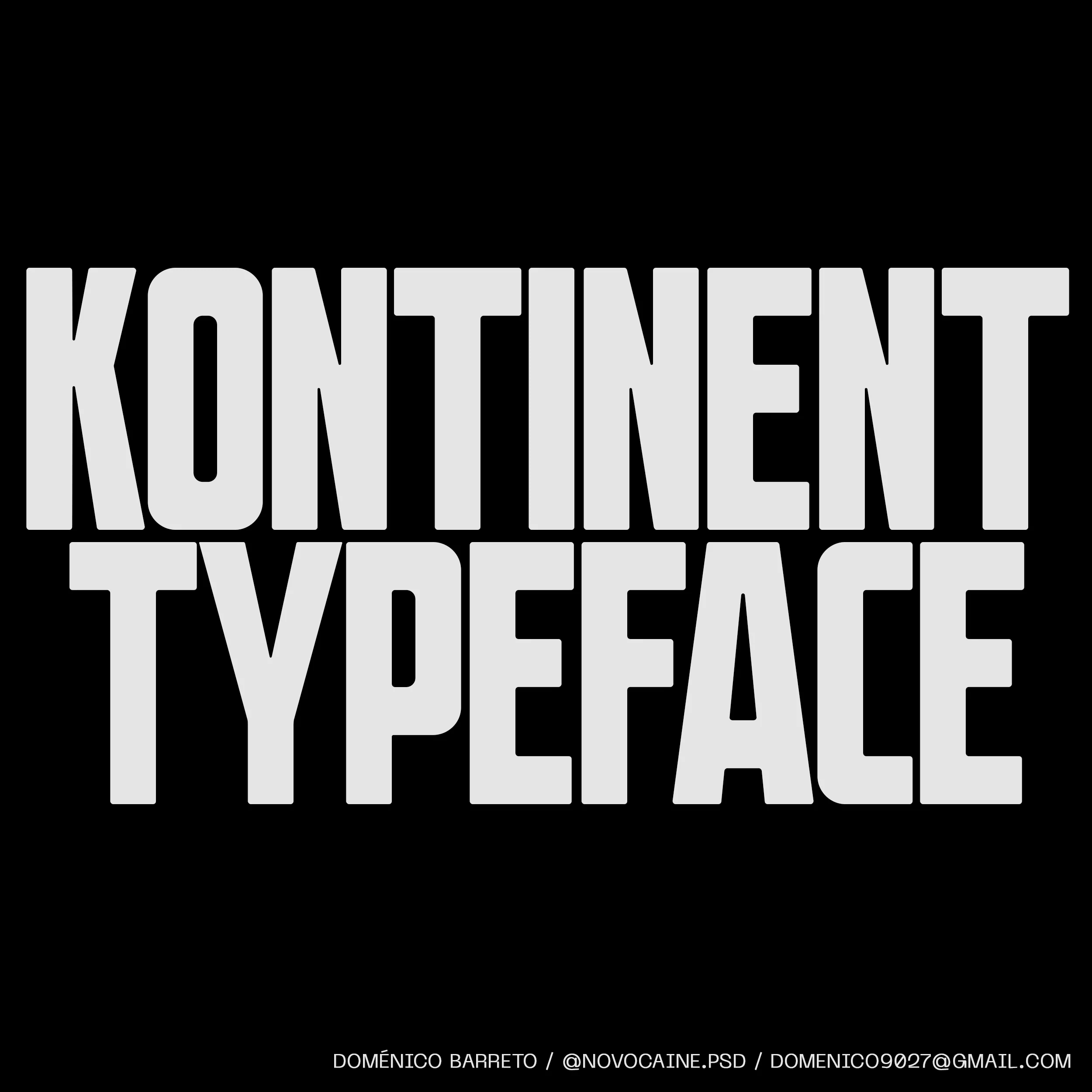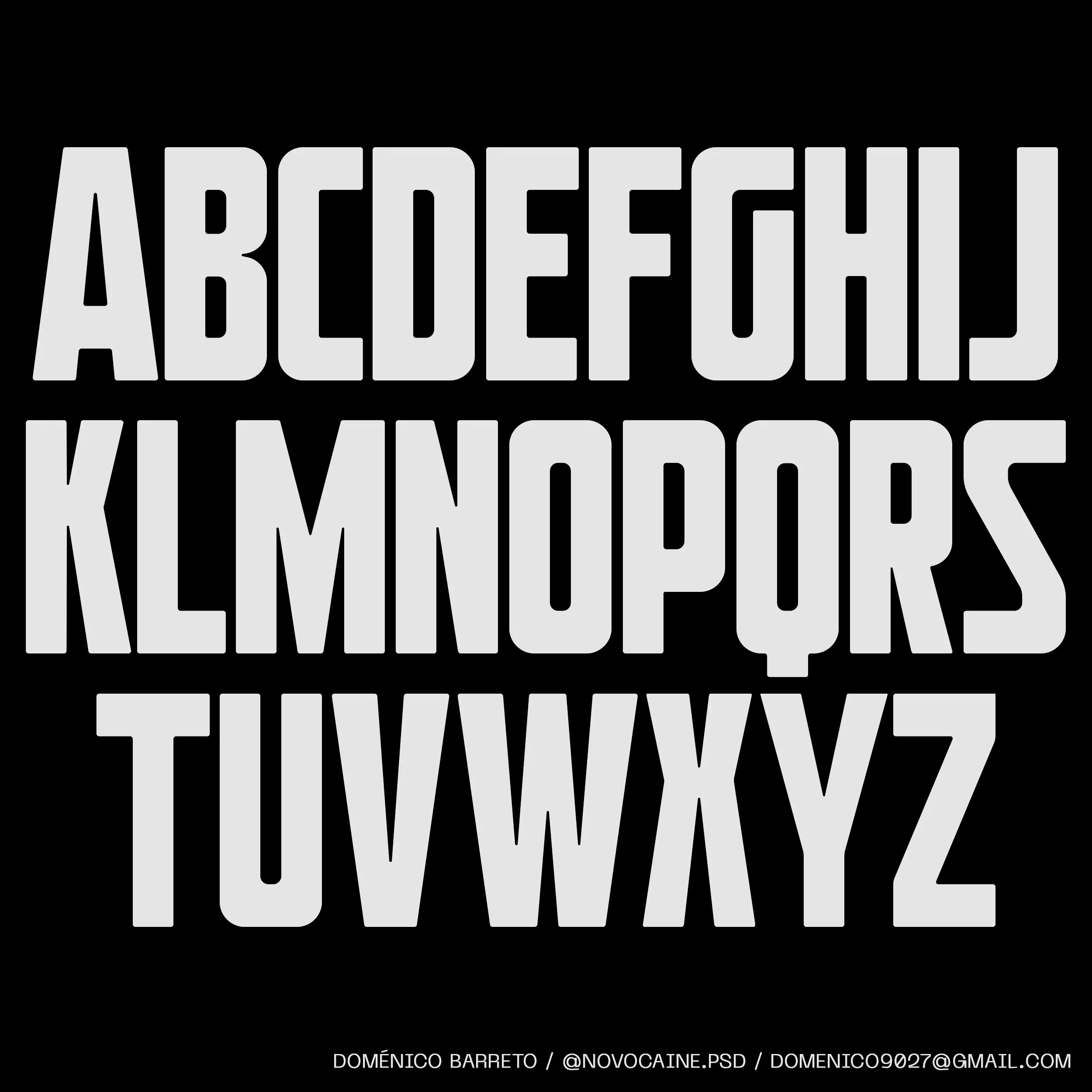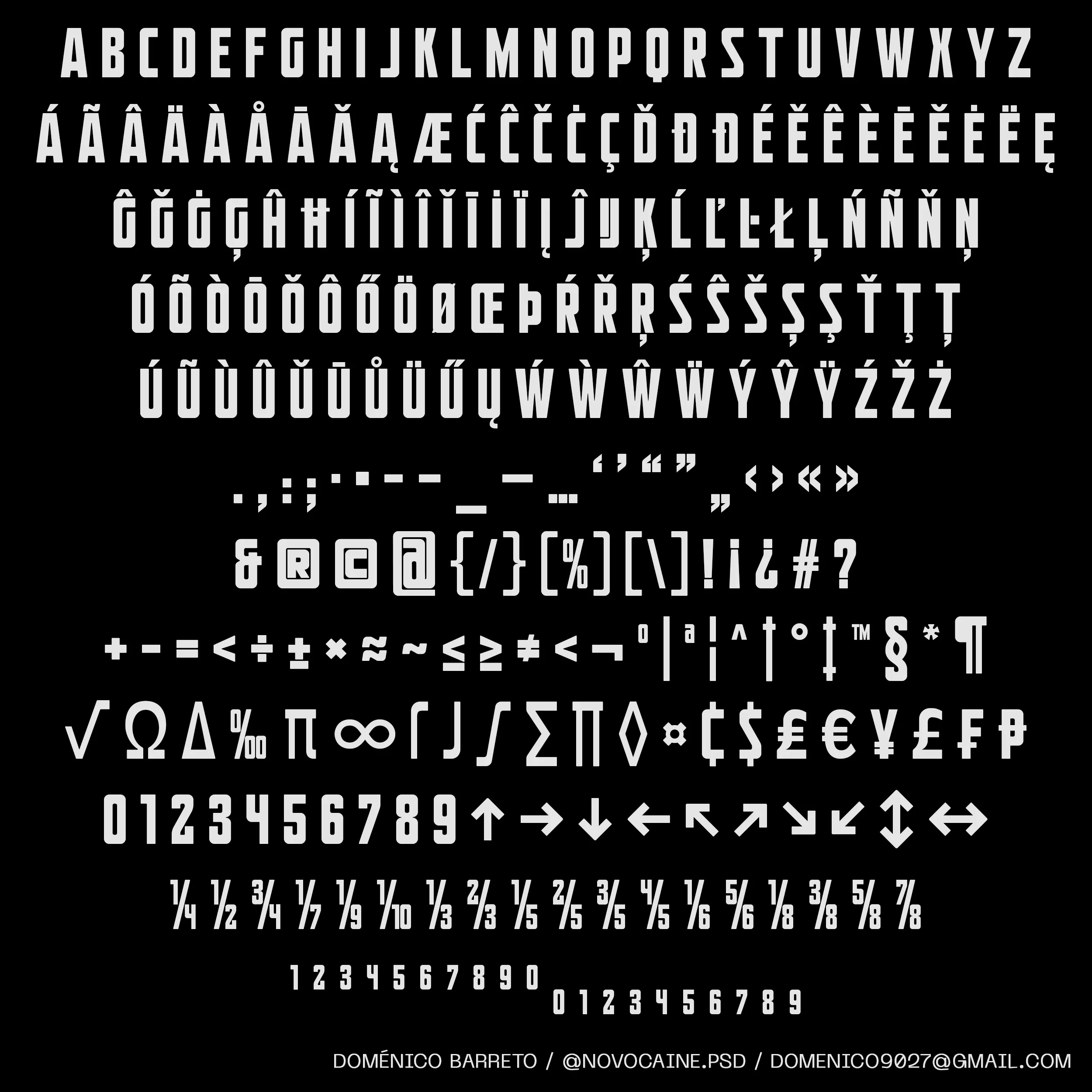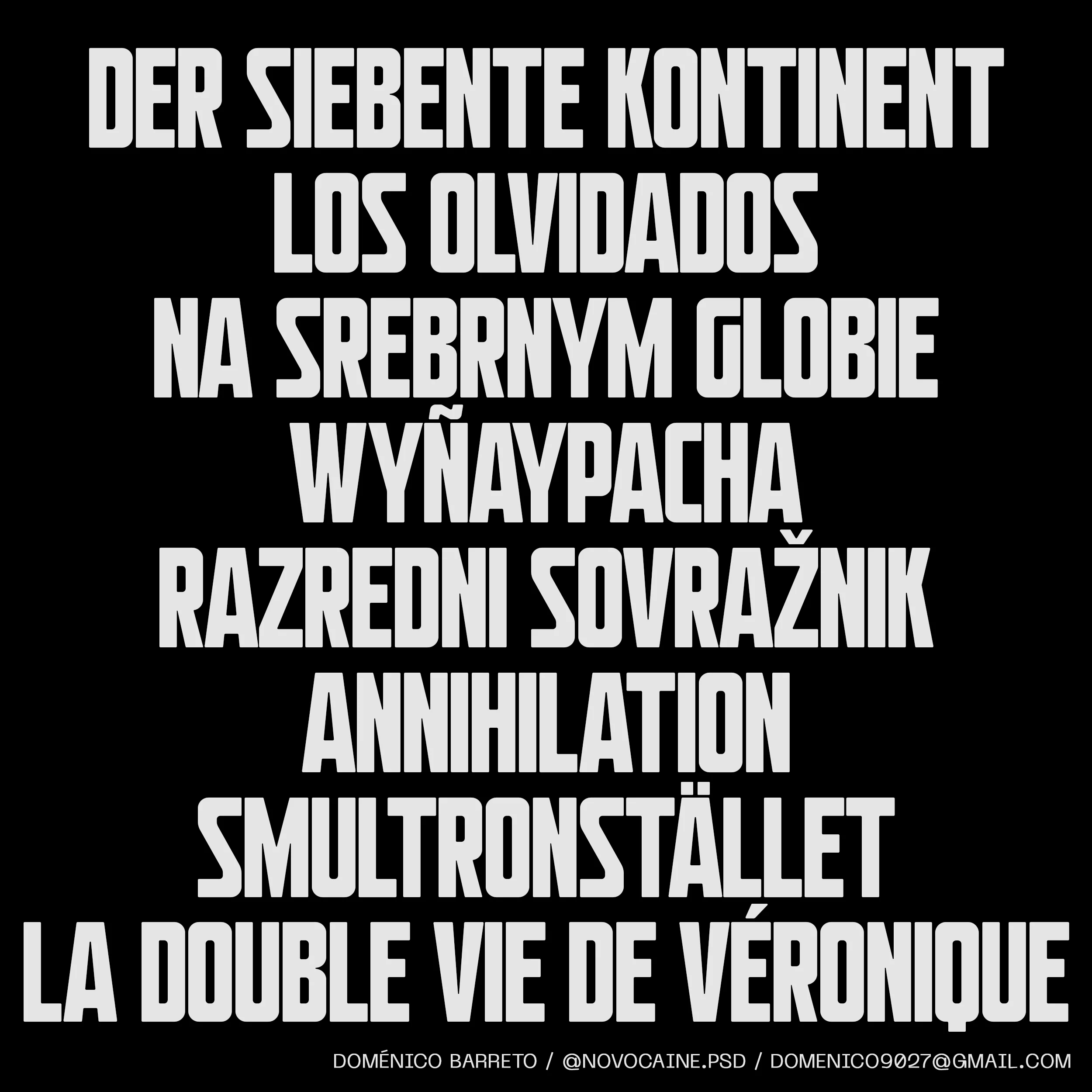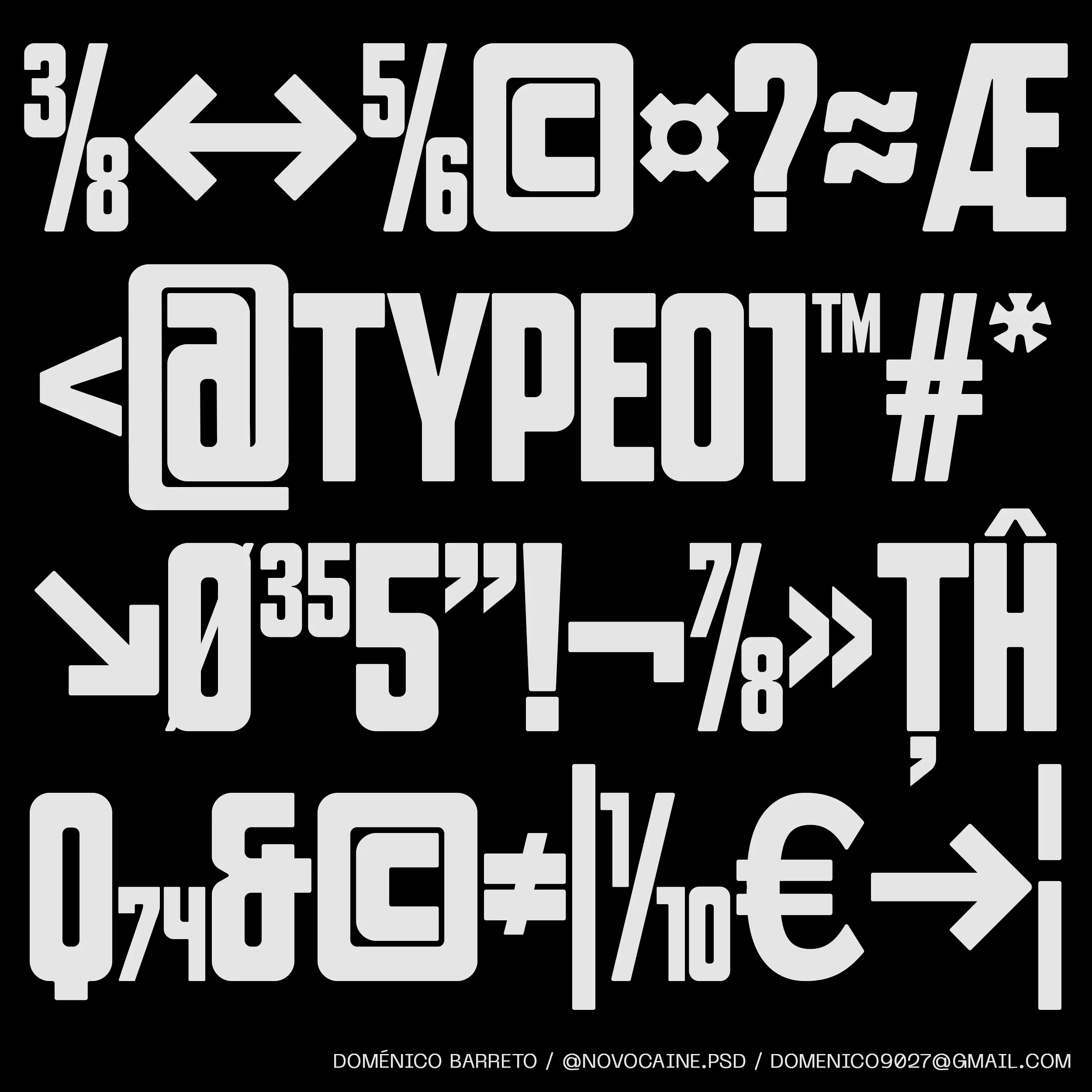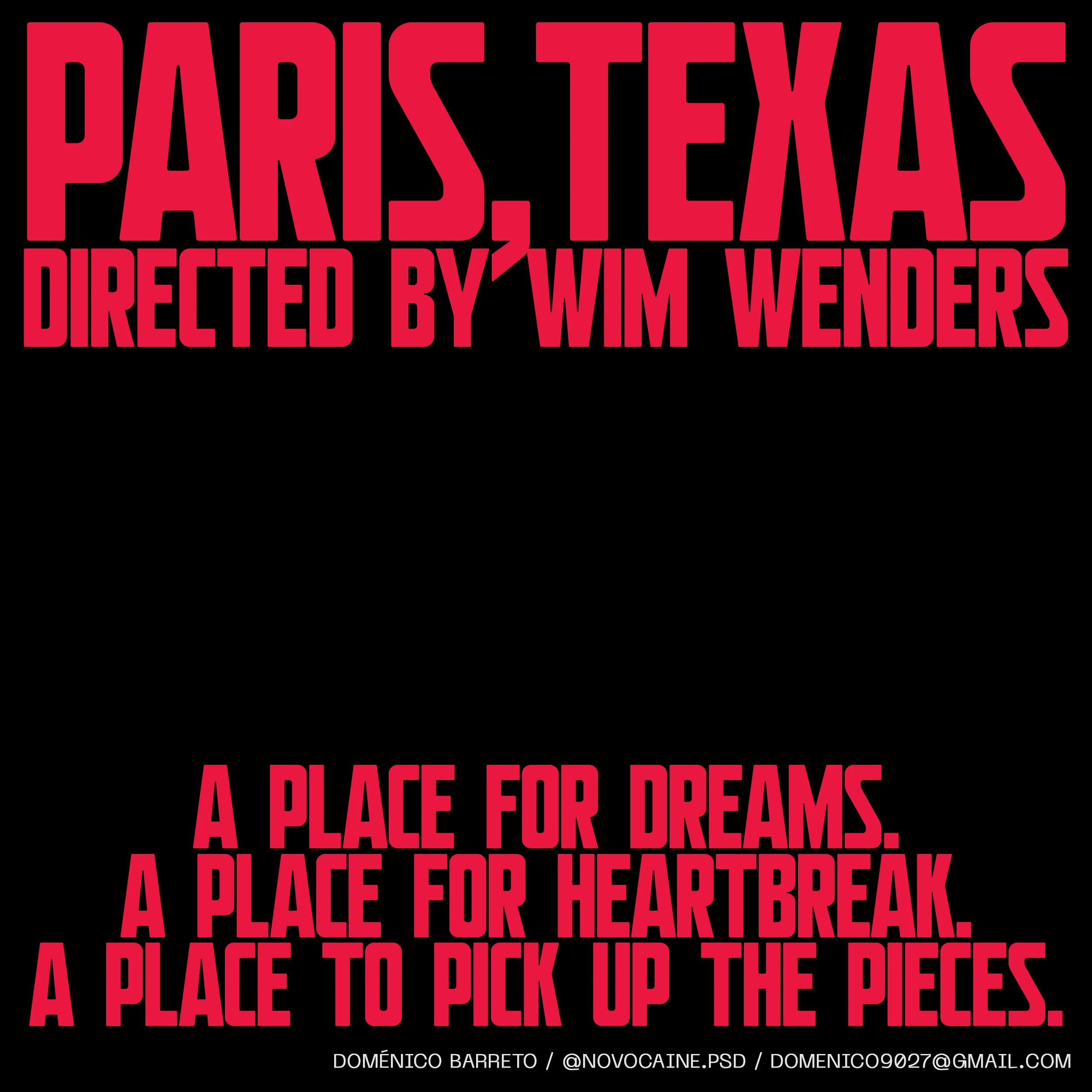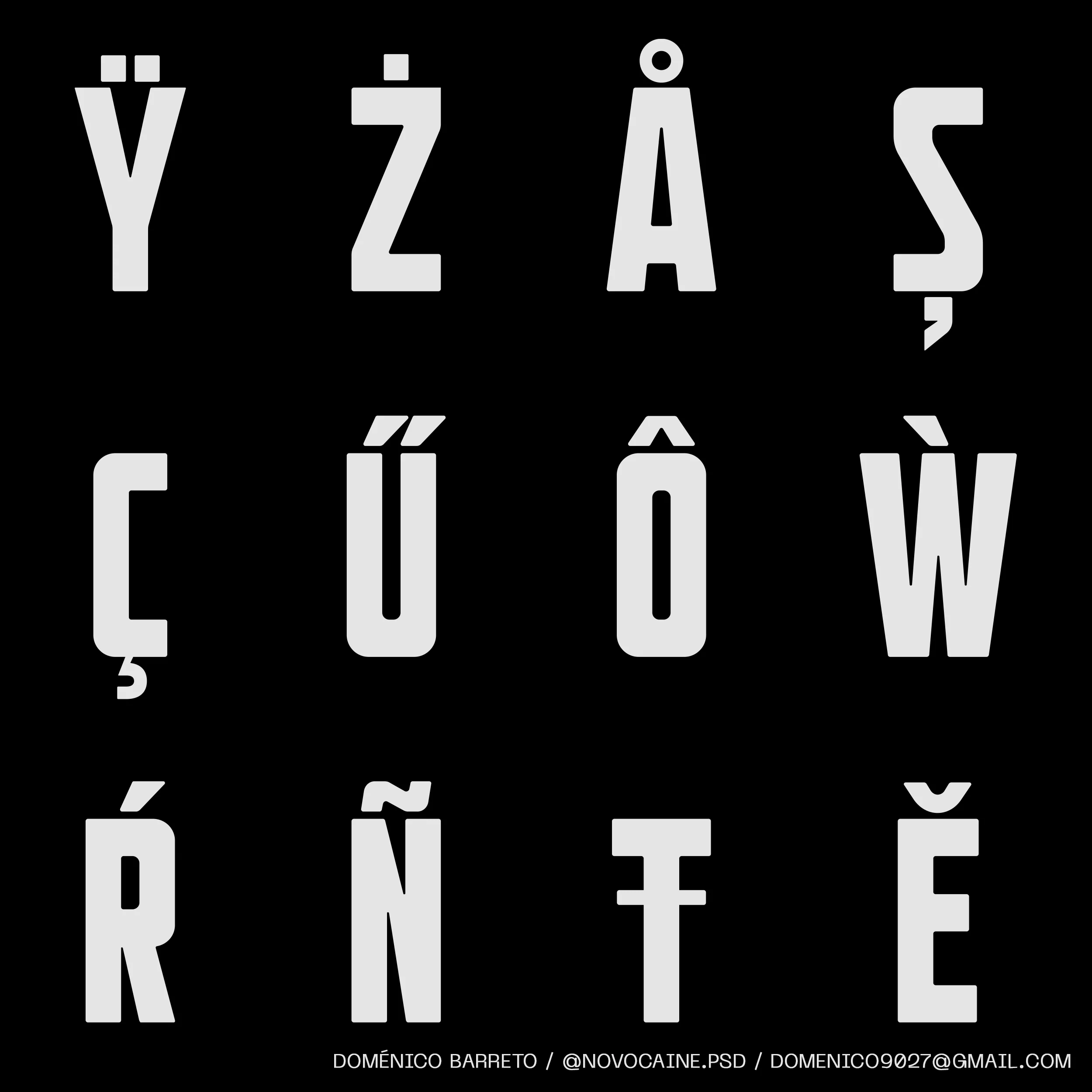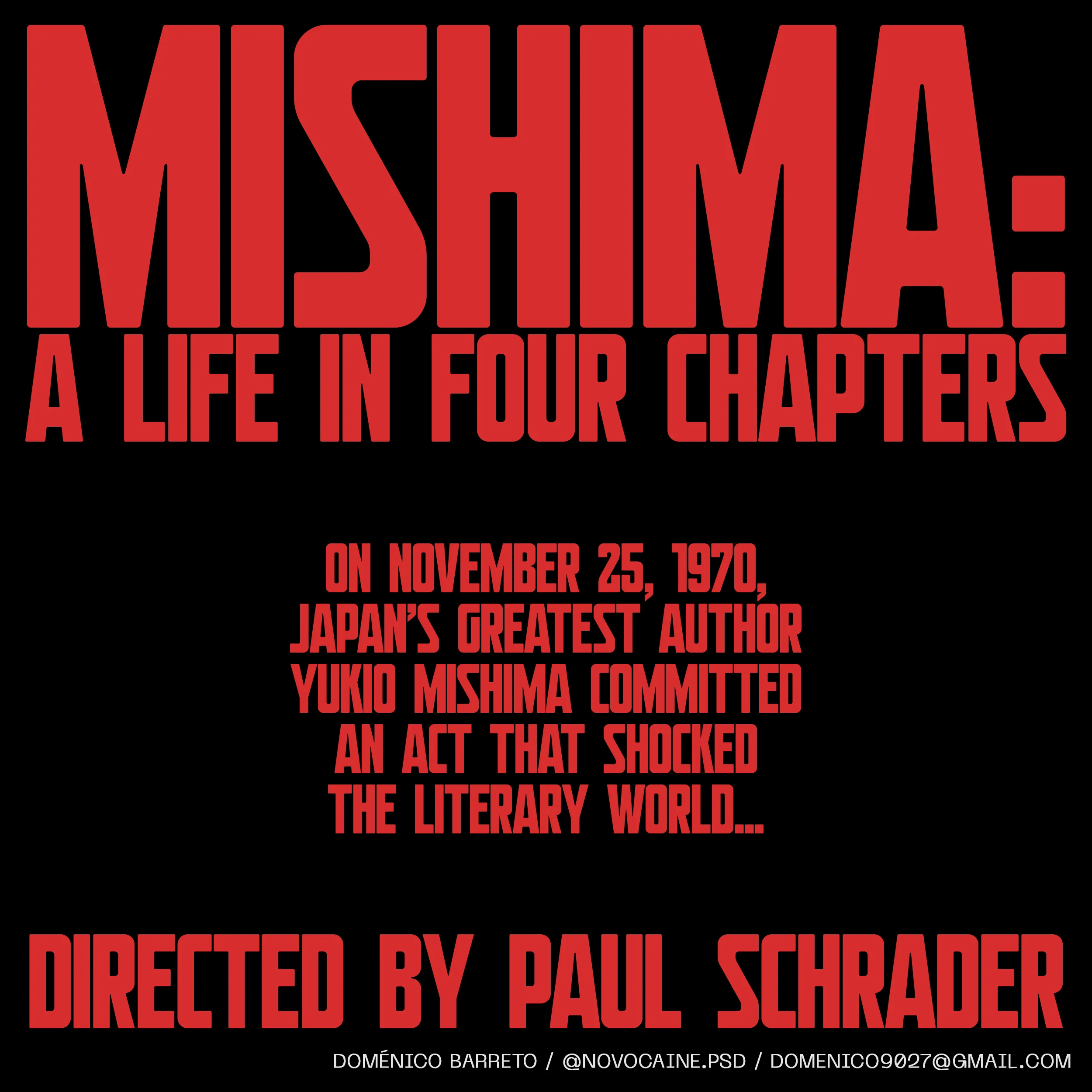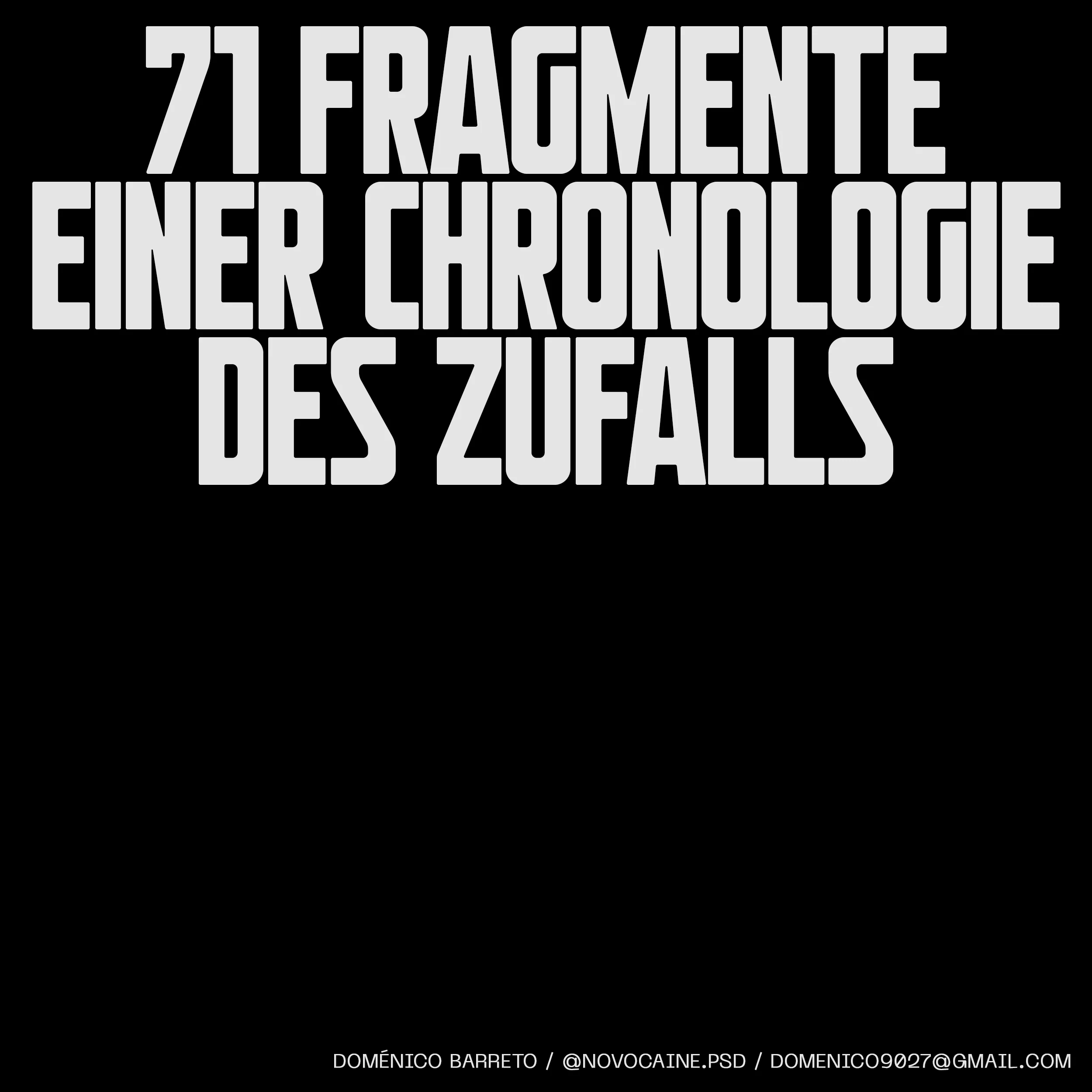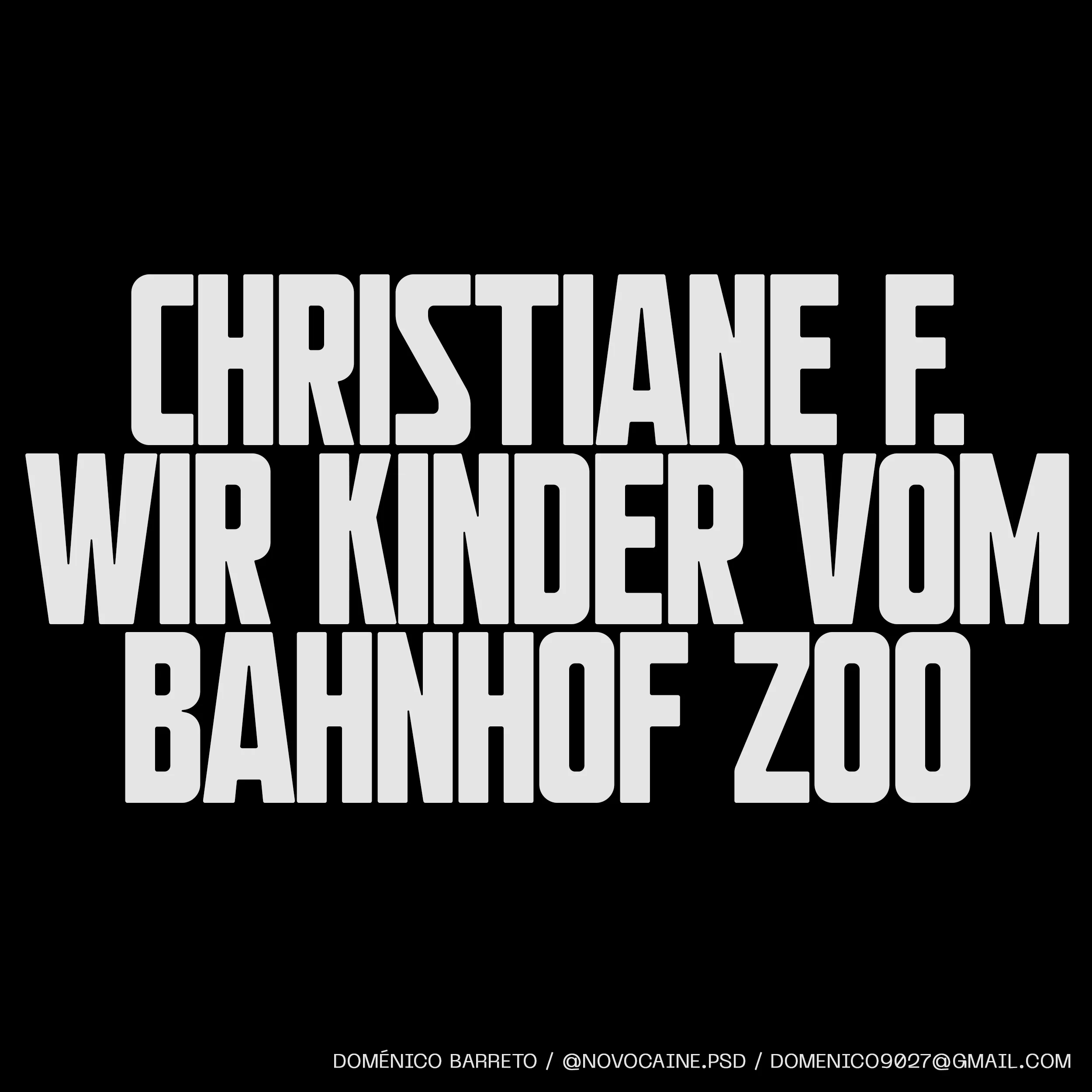
Kontinent
Kontinent is a striking uppercase sans serif display typeface crafted with slightly heavier horizontal strokes, offering a distinctive identity through its low-contrast design. The emphasis on clean and simplified glyph shapes makes Kontinent ideal for commanding headlines, impactful titles, and bold typographic statements.
With its robust yet refined appearance, Kontinent ensures clarity and readability while maintaining a modern aesthetic.
Kontinent is a striking uppercase sans serif display typeface crafted with slightly heavier horizontal strokes, offering a distinctive identity through its low-contrast design. The emphasis on clean and simplified glyph shapes makes Kontinent ideal for commanding headlines, impactful titles, and bold typographic statements.
With its robust yet refined appearance, Kontinent ensures clarity and readability while maintaining a modern aesthetic.